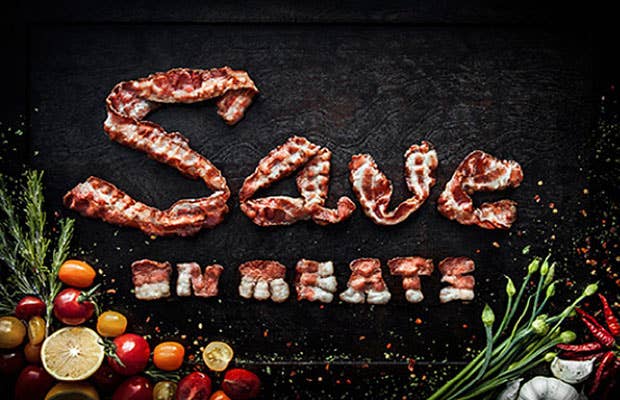
Taking doodling to a new medium, Austrian photographer and designer Marion Luttenberger has created a series of "experimental typefaces," building letters and words using a selection of arbitrary objects. While some of her pieces feature words that are compiled of what the mean—like strips of bacon forming "meats"—others have a more random relationship between medium and meaning. The artist uses a wide variety of unexpected objects to make words including water droplets, tied fabric, stitched string, and ribbon. Luttenberger does not preserve her works but instead remains satisfied after photographing them. As text originates from writing on a flat plane, she appropriately returns the typefaces back to their 2D state with her photographs.